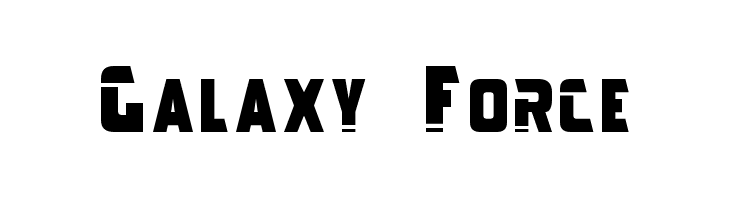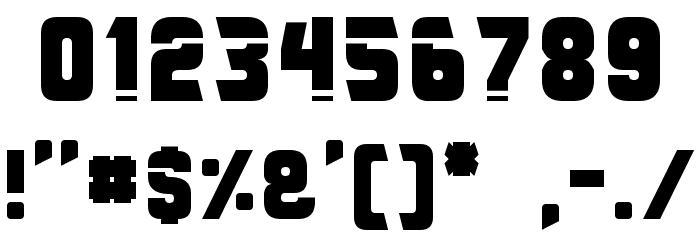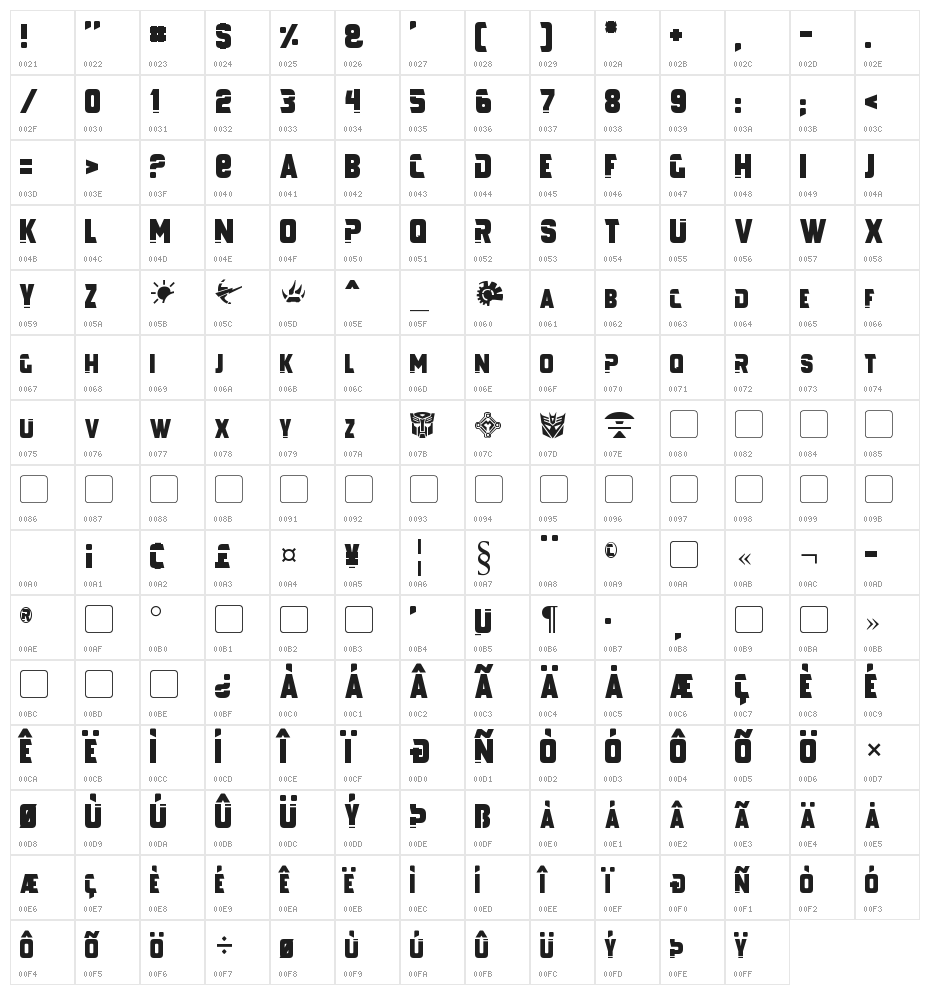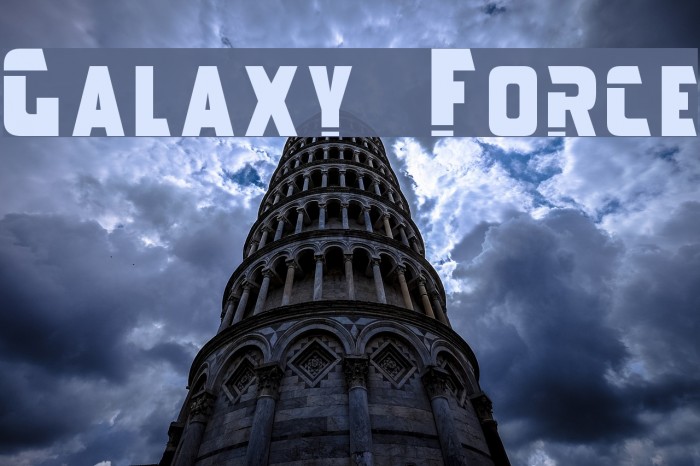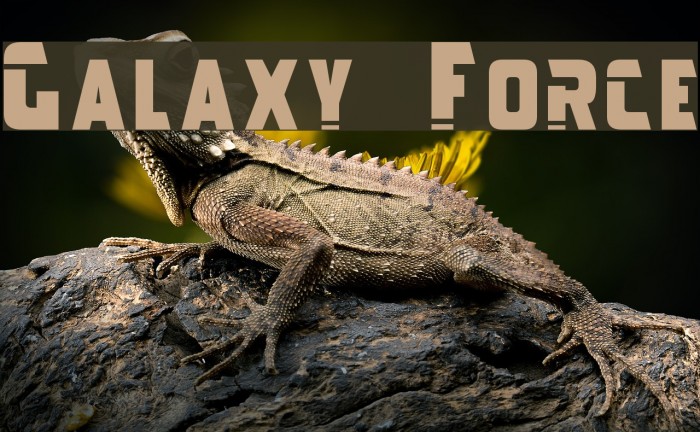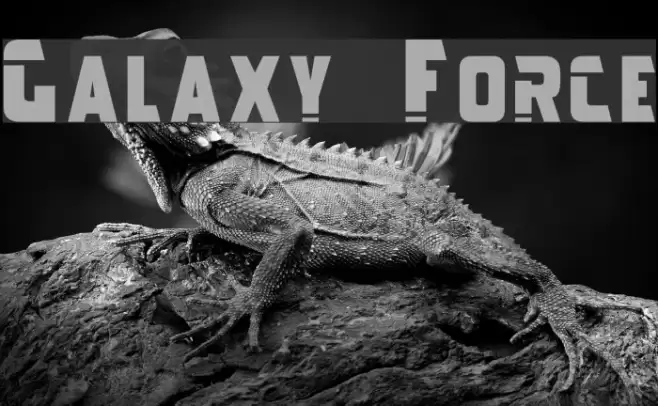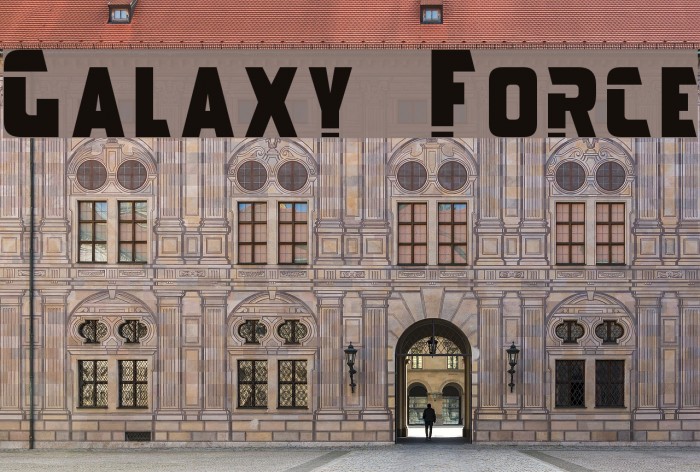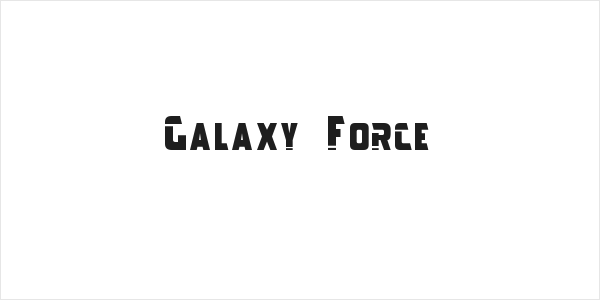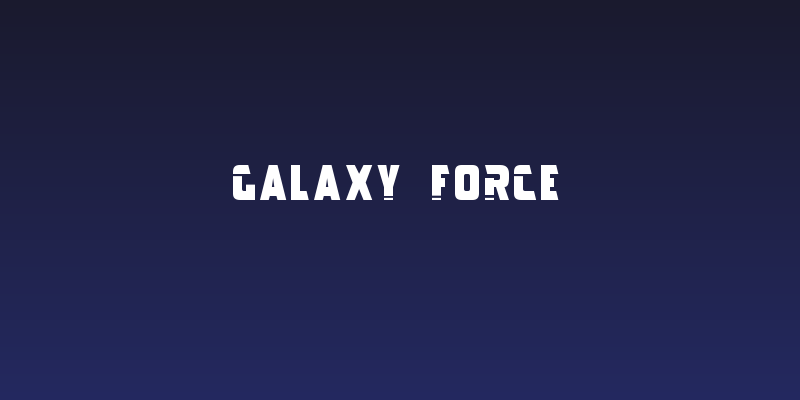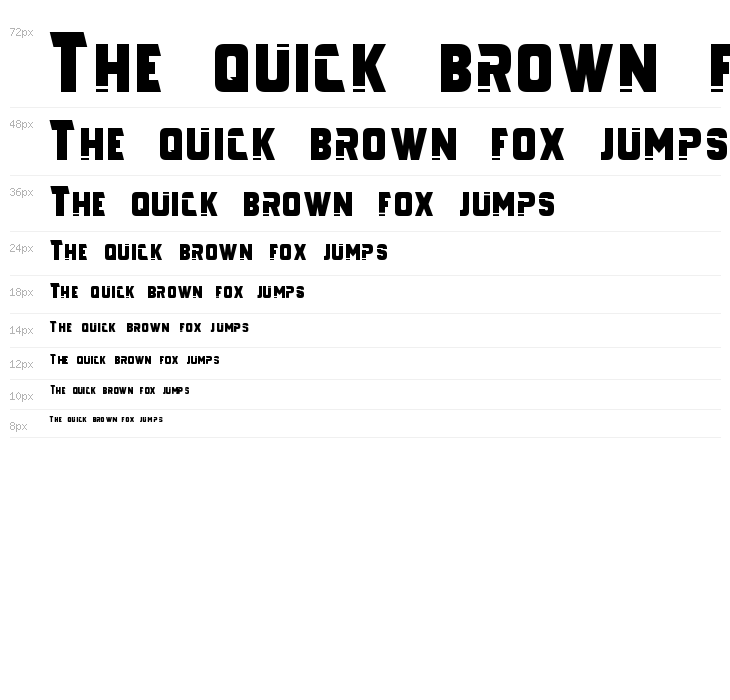
Galaxy Force Font
Galaxy Force Description
This font features a bold and futuristic design, characterized by its strong geometric shapes and sharp angles. The uppercase letters are particularly striking, with a uniform height and width that create a cohesive and powerful appearance. The font includes both uppercase and lowercase letters, though the lowercase maintains a similar height to the uppercase, enhancing its bold presence. Numbers and special characters are also included, following the same design principles. The font's style is reminiscent of science fiction and technology themes, making it ideal for projects that require a modern and dynamic look.